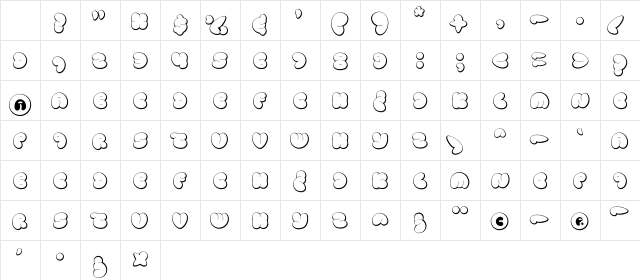
Complete Vandal Blow Graffiti Shadow Regular glyph index. Displaying only characters natively supported by Vandal Blow Graffiti Shadow Regular font.
Vandal Blow Graffiti Shadow is built around its visual character rather than neutral utility - its distinctive forms are designed to make an impression at display sizes.
Font Pairing: Pair with a clean neutral sans-serif for body copy to let Vandal Blow Graffiti Shadow's character lead without overwhelming the composition.
Pro Tip: Use Vandal Blow Graffiti Shadow exclusively at display sizes - it was designed to be seen, not read at length. Let a neutral companion handle body copy.